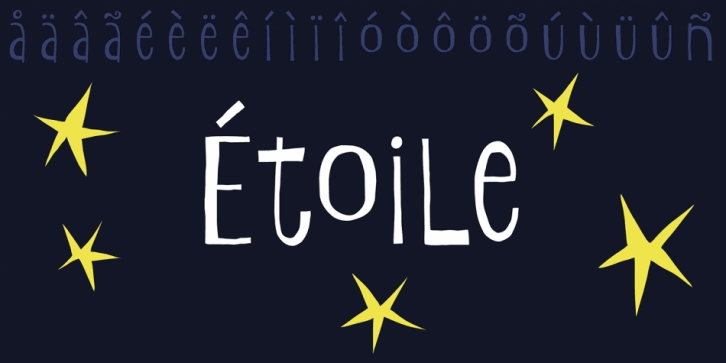
Shoebox is a dingbat and hand drawn font family. This typeface has two styles and was published by Atlantic Fonts.
Shoebox font is crafty and sweet. It’s hand-drawn with double letter ligatures for upper and lower case. It works great in all-cap, and the lower case is a funky mix up with some interlocking ligatures too. Shoebox is rough with an occasional curl, and is paired with Shoebox Shapes; a unique picture font of Amy Dietrich illustrations (featuring boxes, bags, cats, stars, familiar household items, and for some reason, a forgetful octopus).